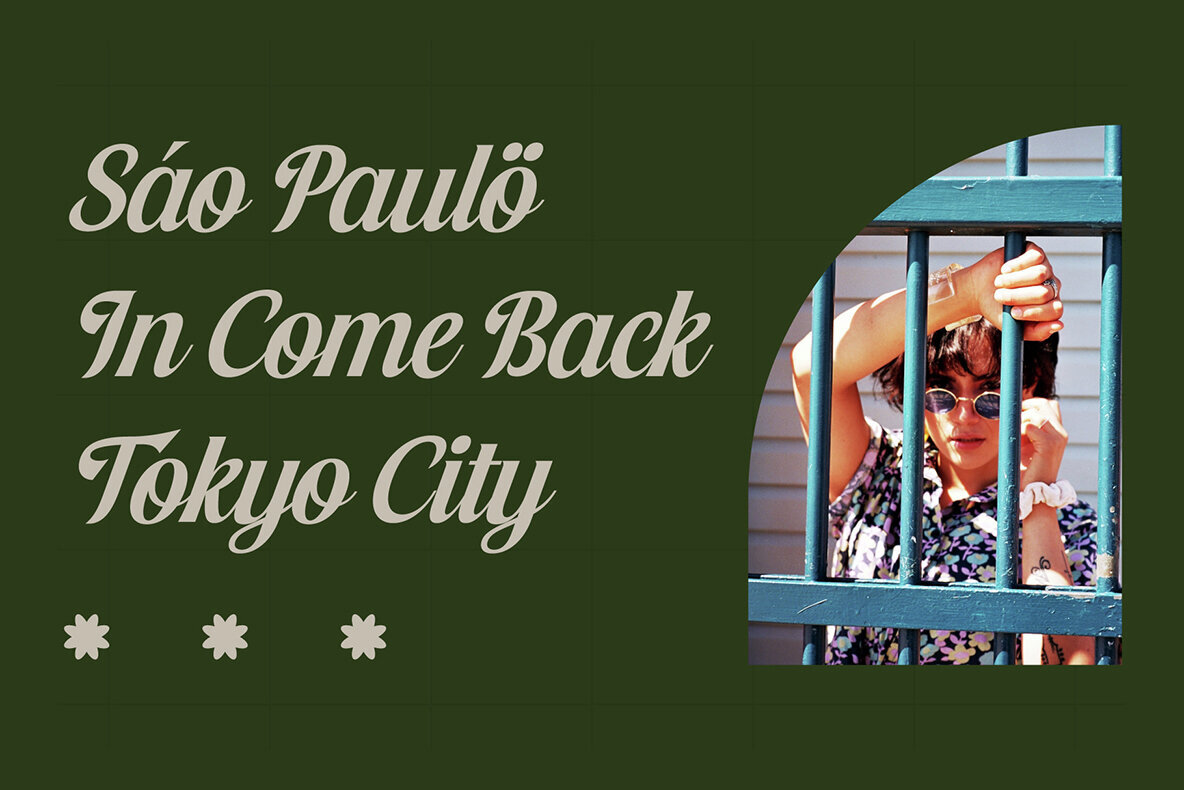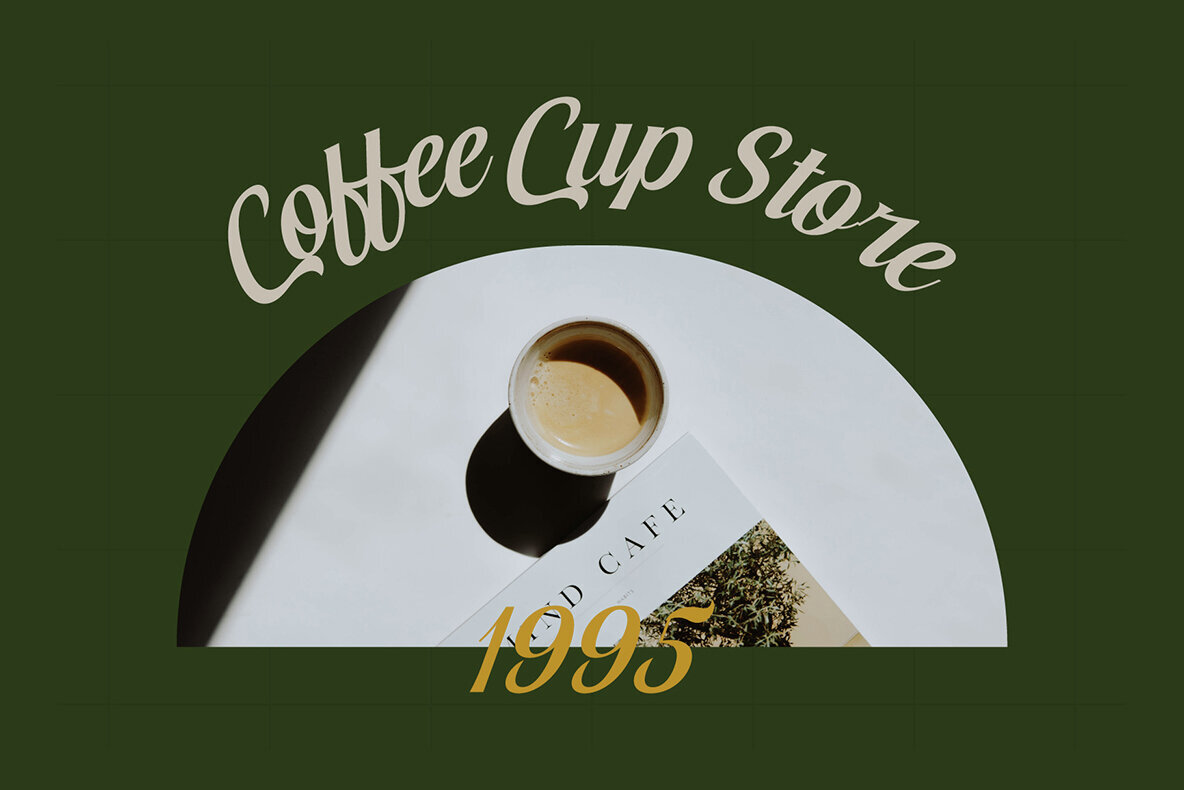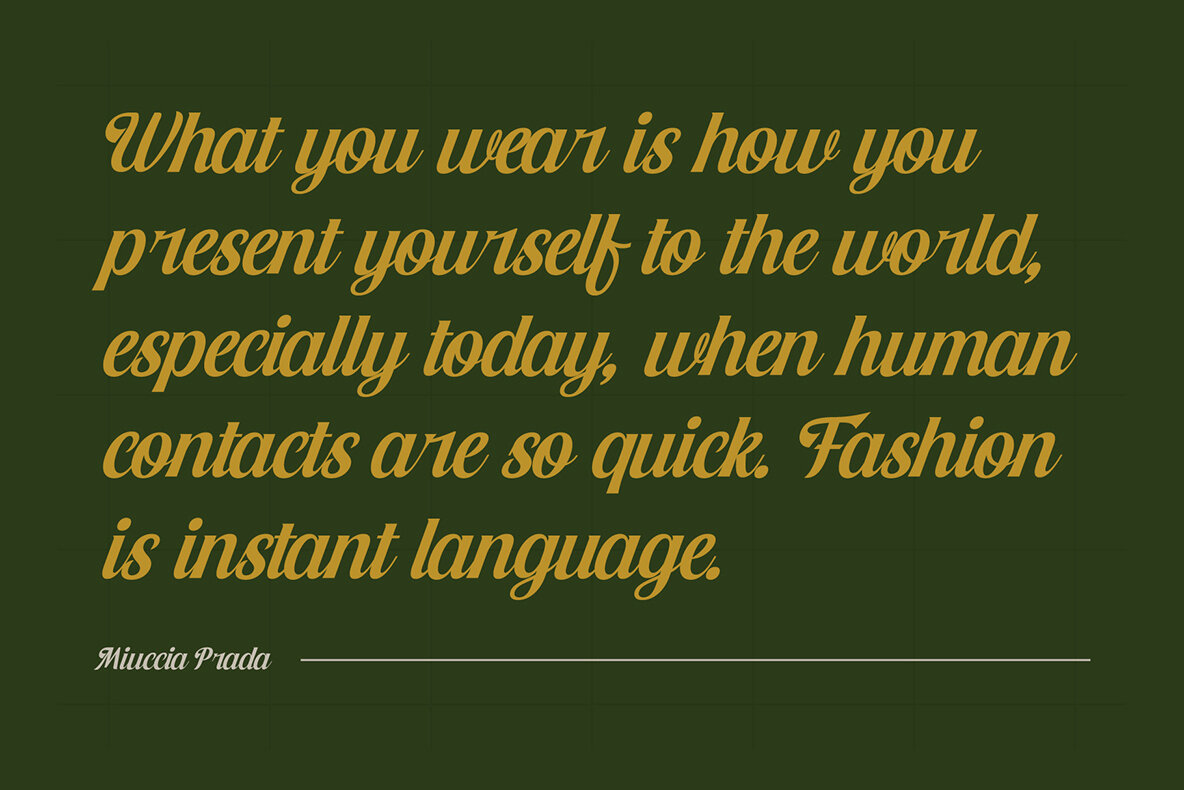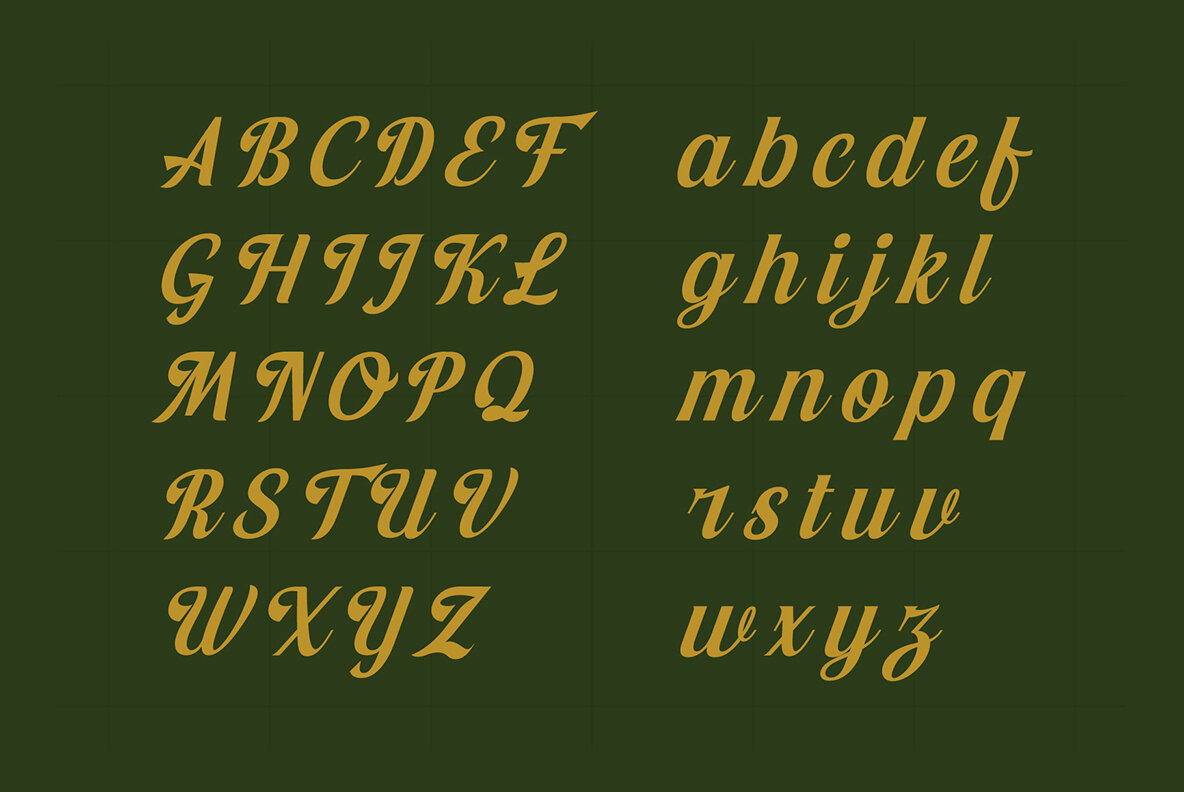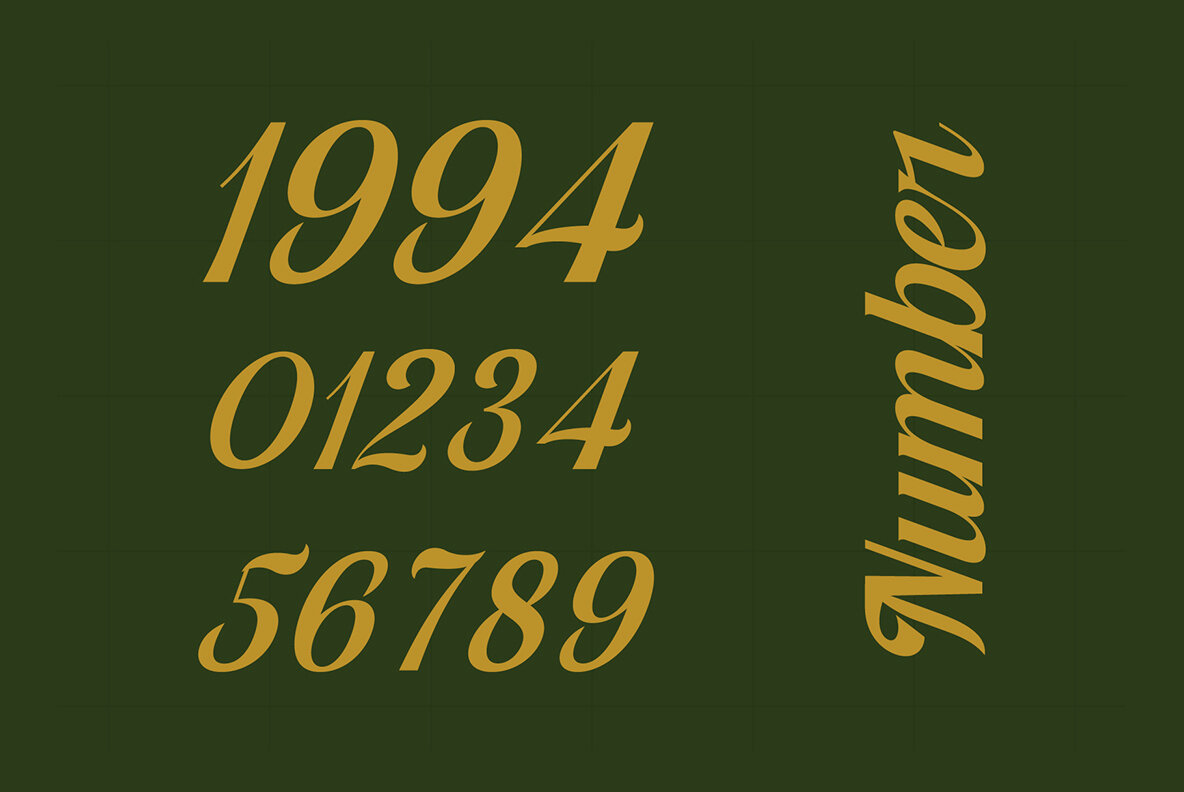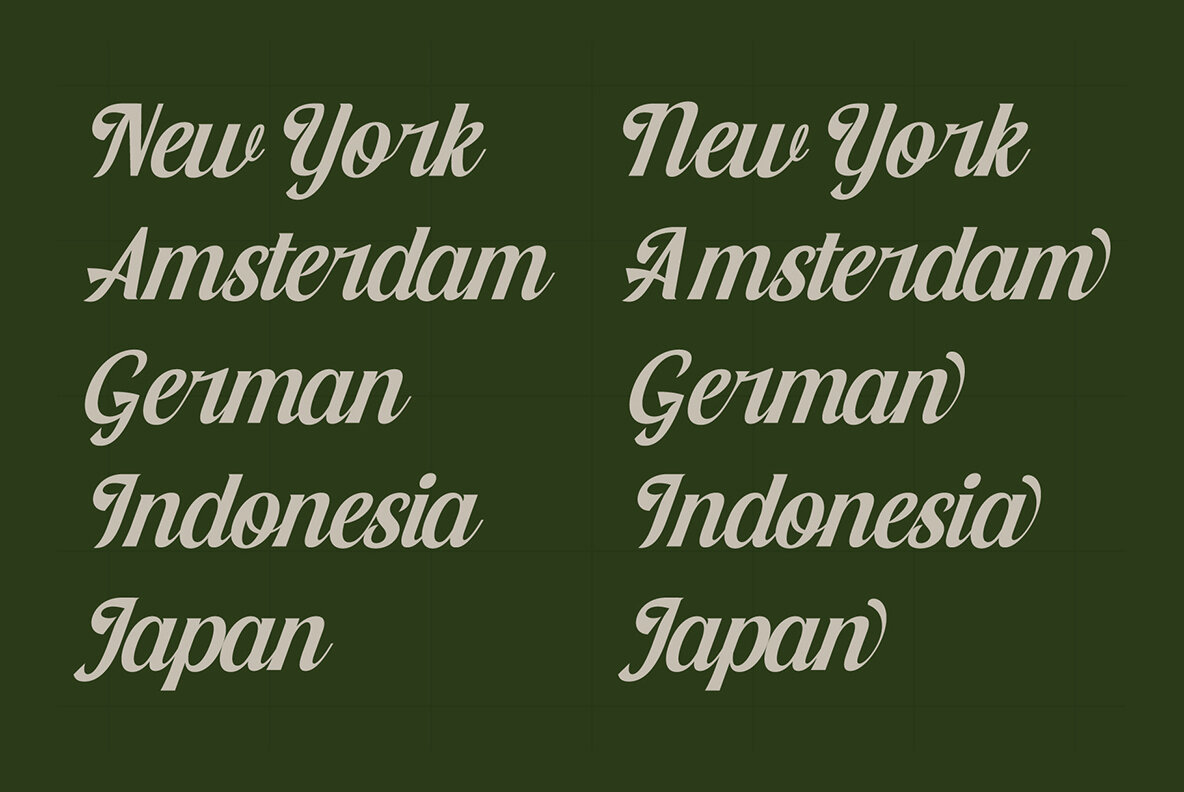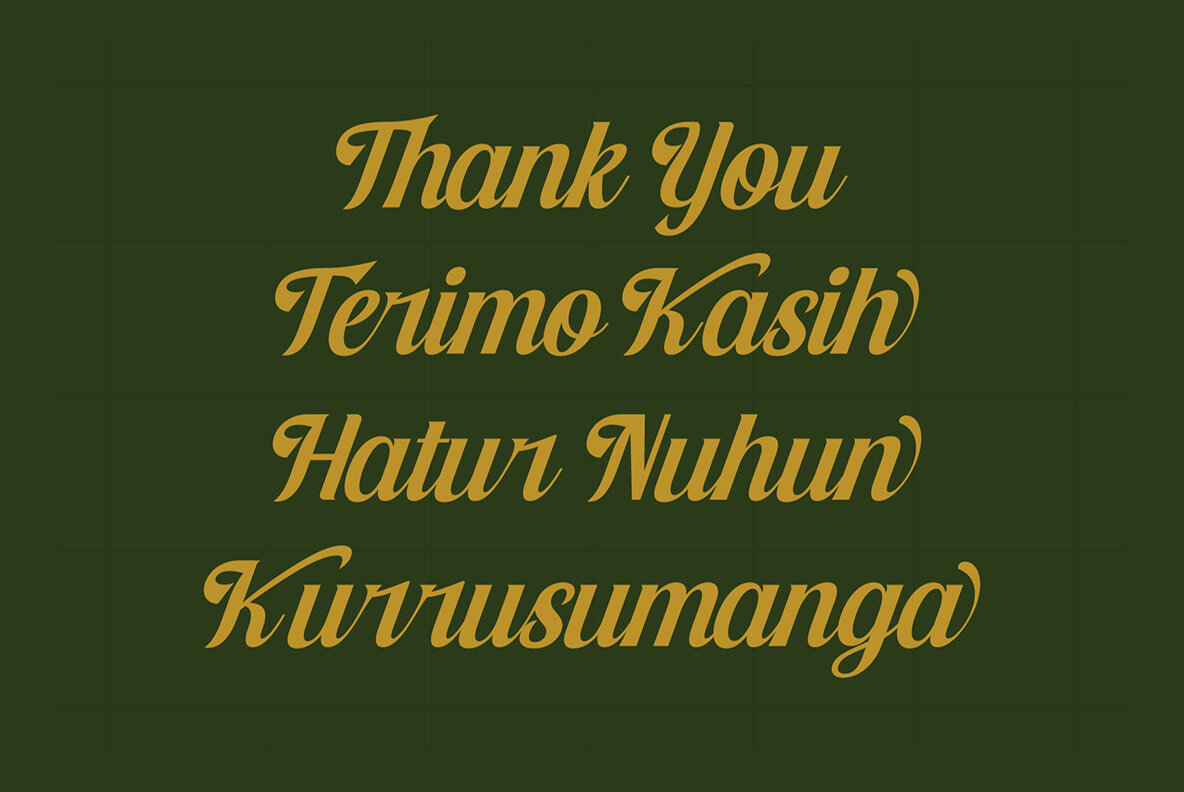
Chellinda Font
Chellinda Regular
Chellinda is a retro-style font that resonates with the charm of yesteryear's athletic designs. This versatile typeface is perfect for holiday-themed projects, eye-catching t-shirt graphics, and much more.